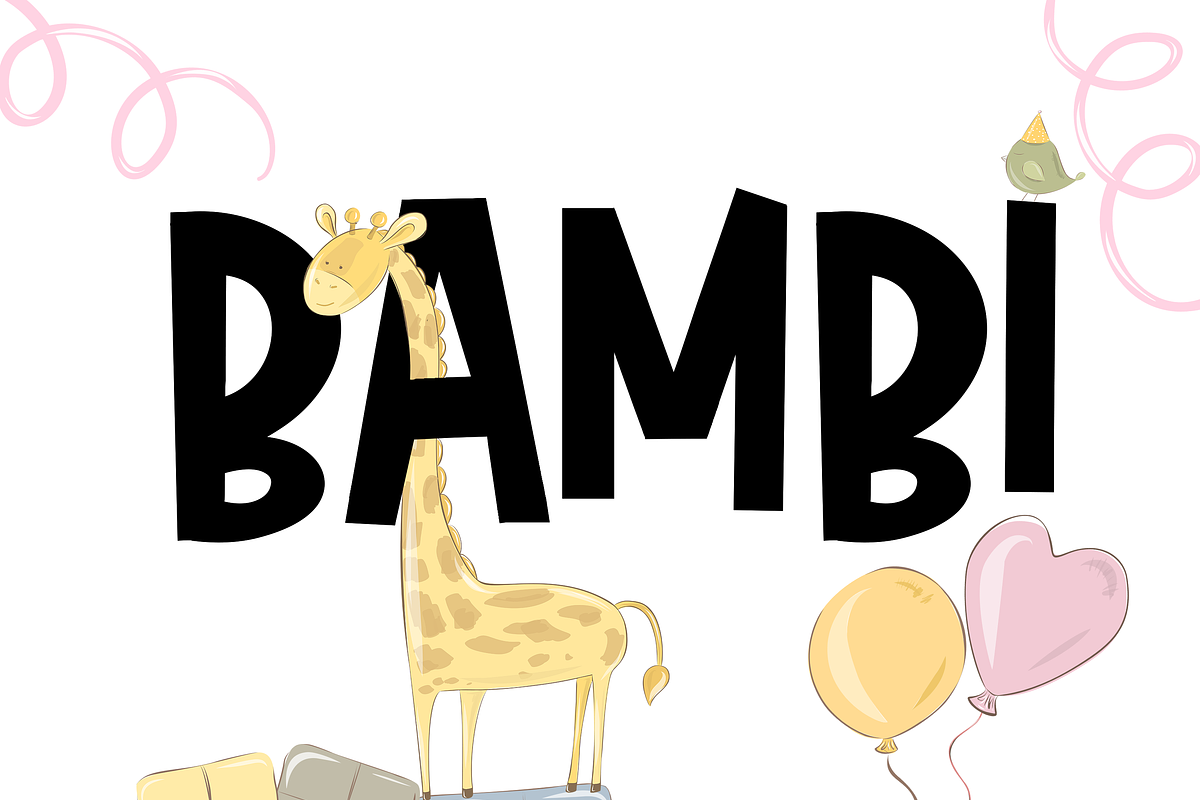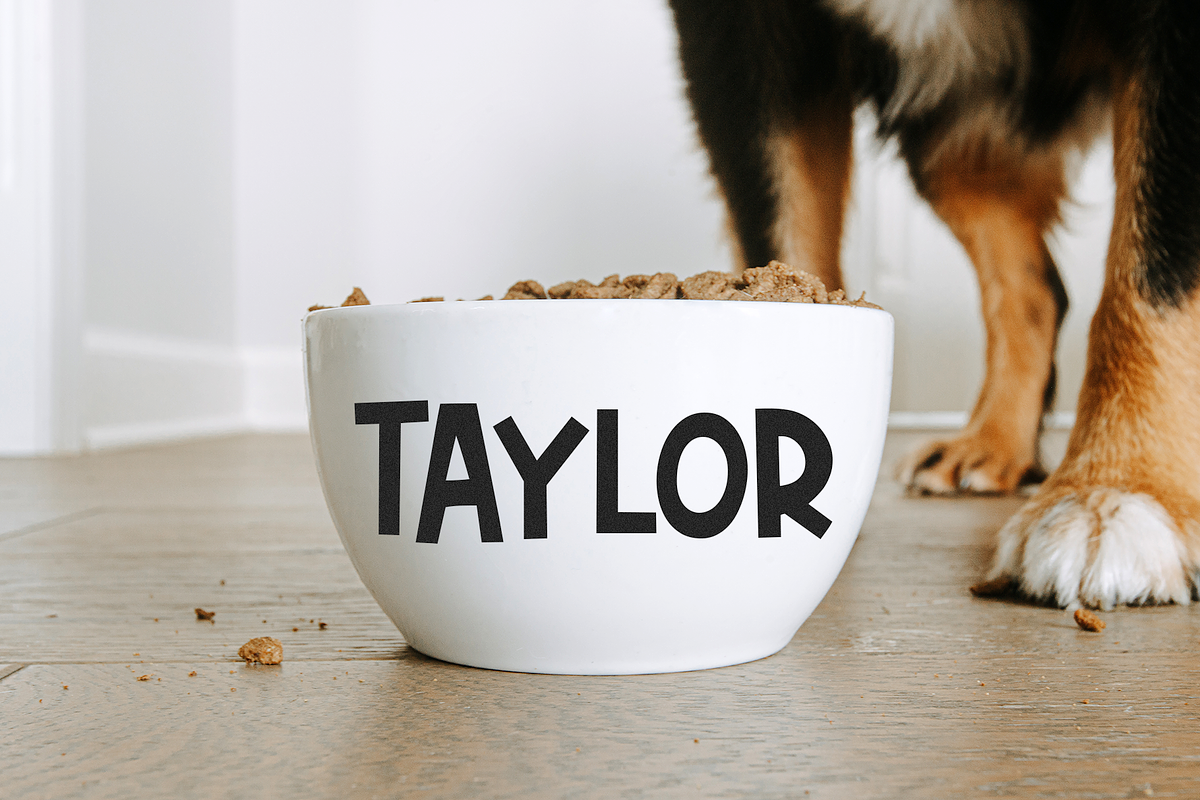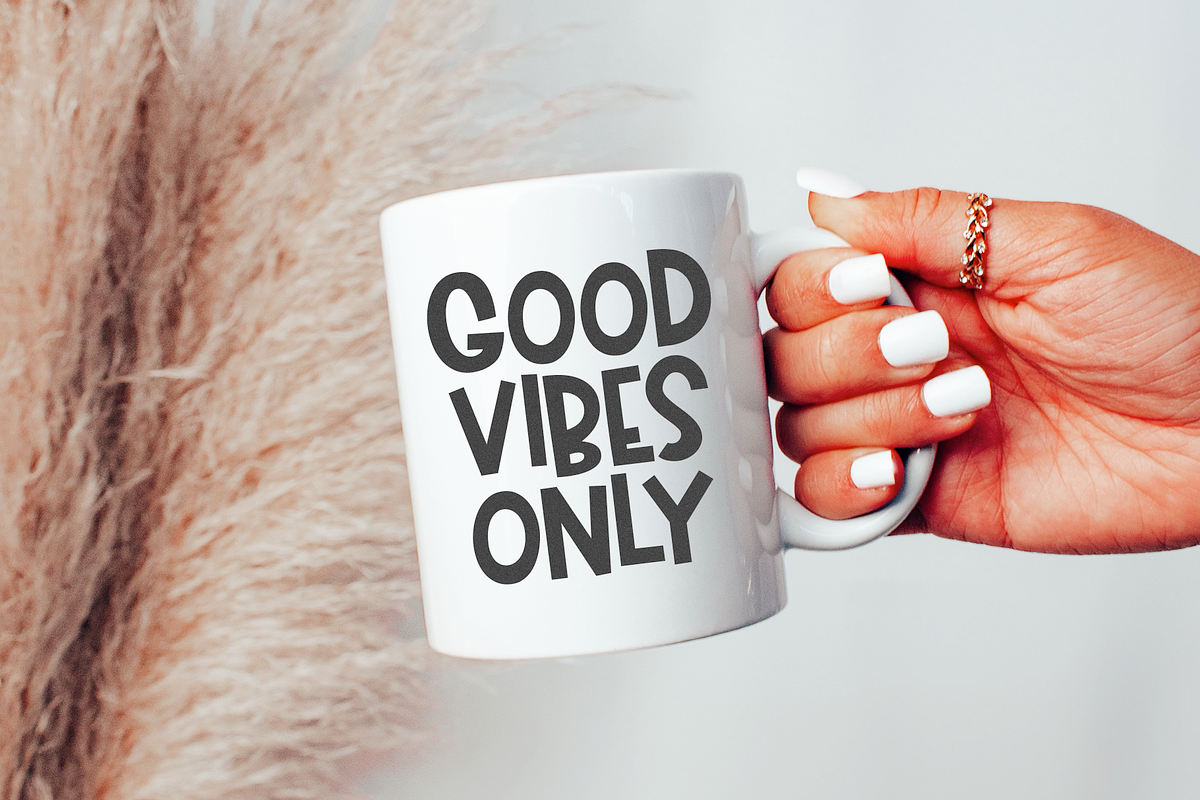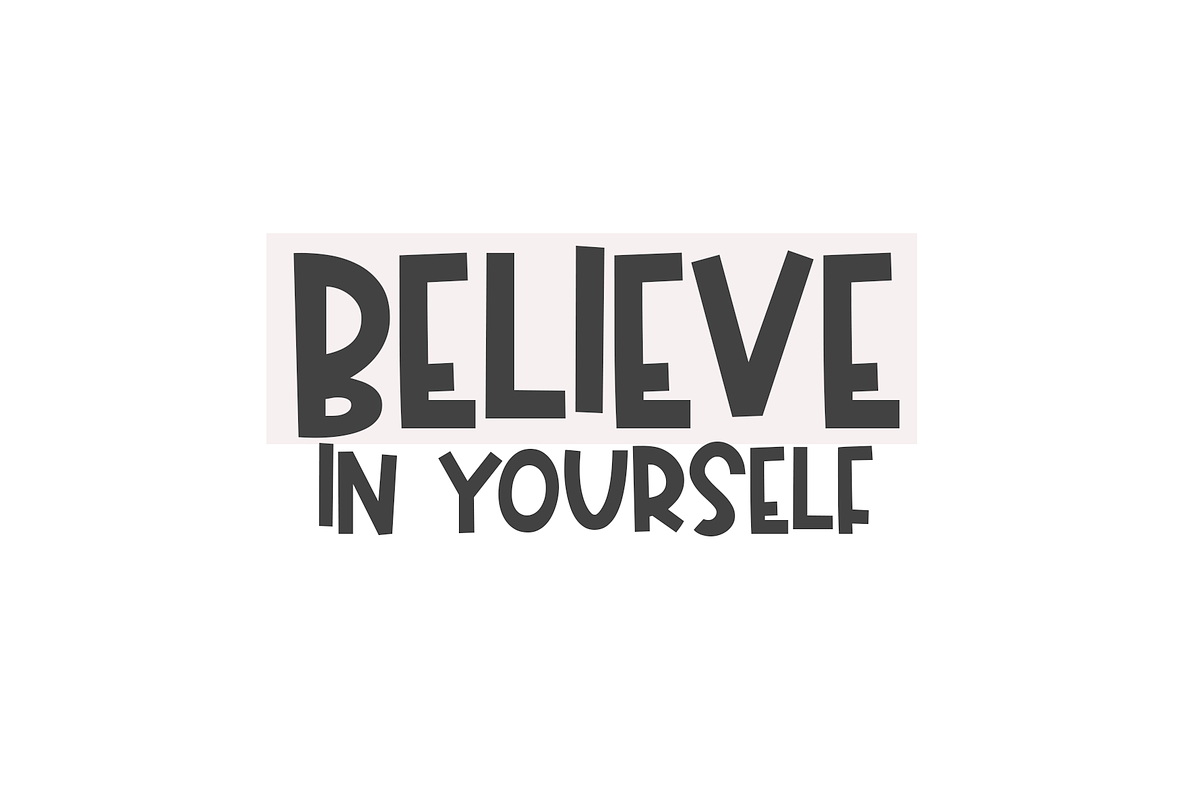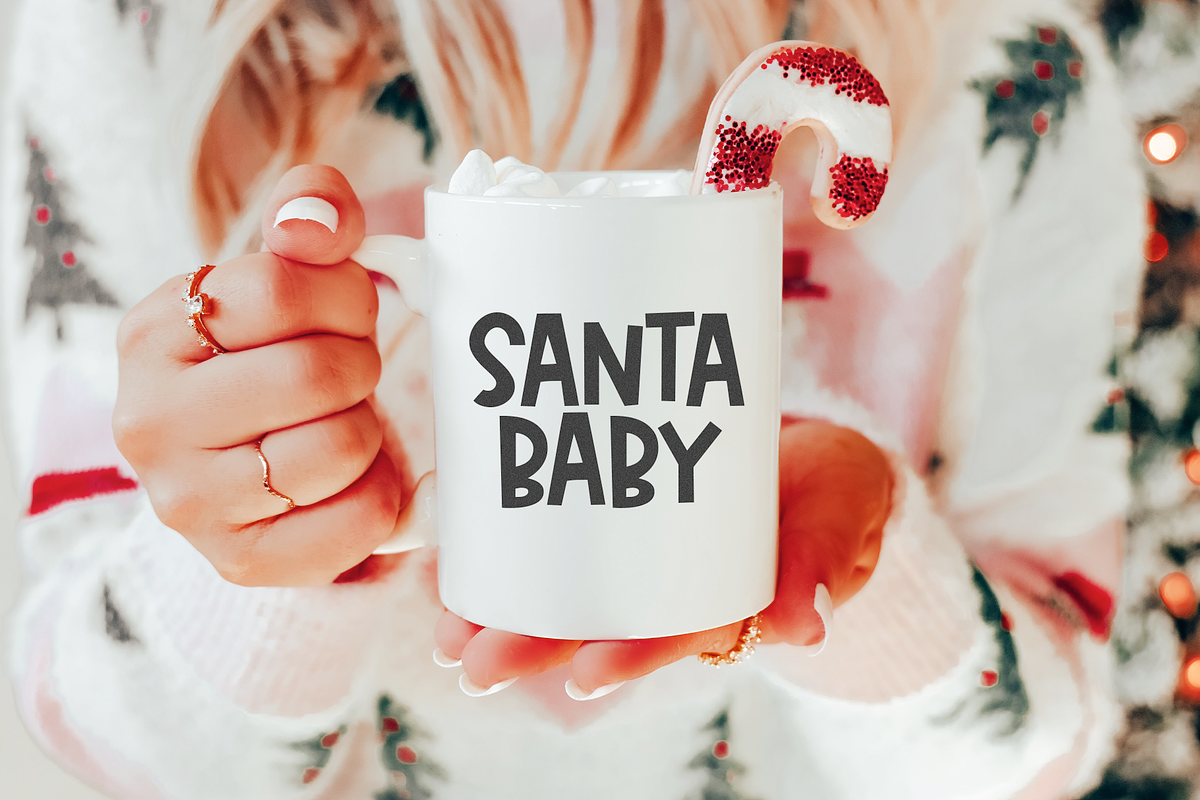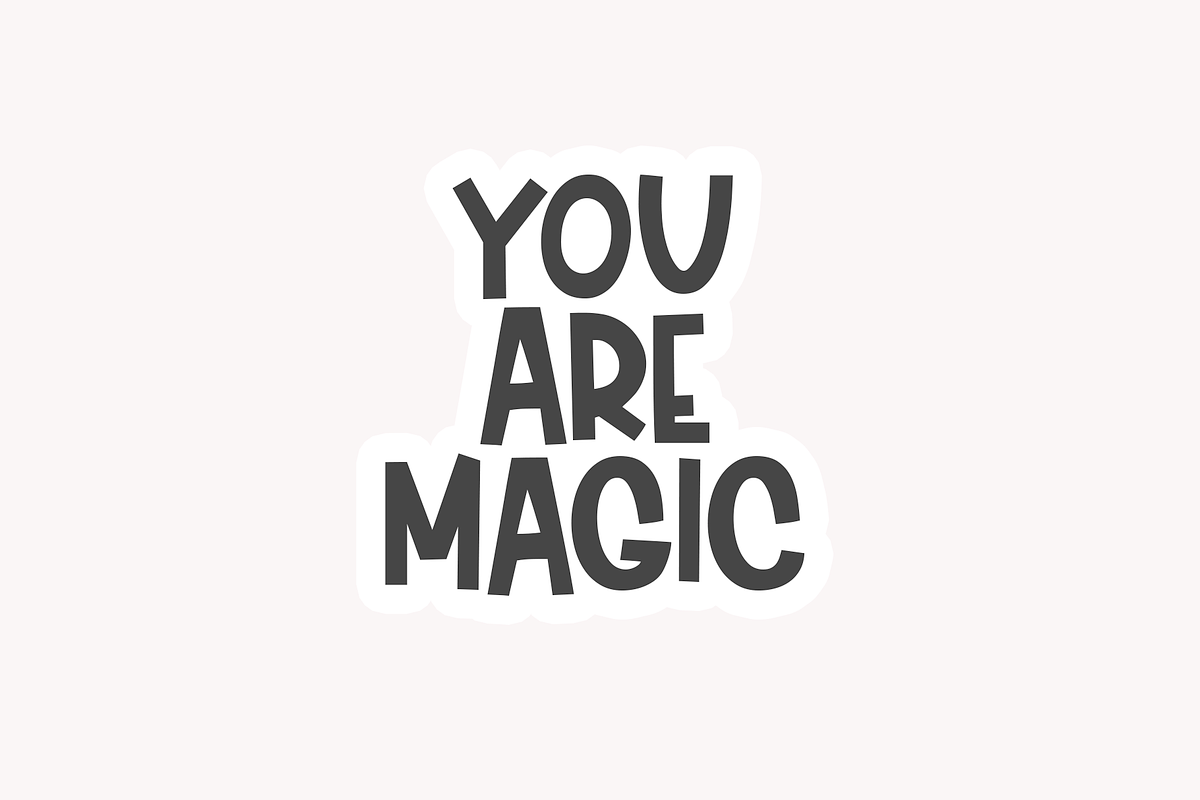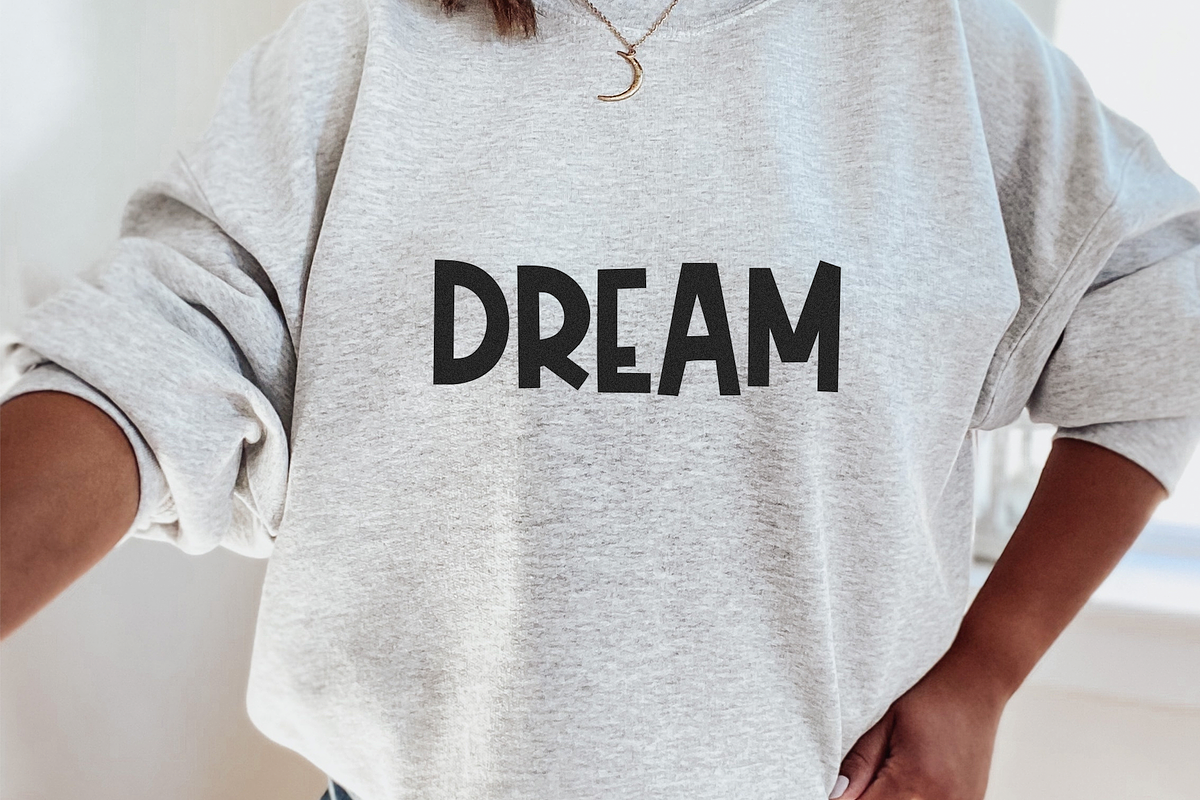
BAMK | A Bold Handwritten Font
BAMK is a fun handwritten font with bold letters. This is an all caps font
This font is perfect for quotes, headings, designs, logos, invitations and more!
BAMK | A Bold Handwritten Font by KA Designs fits naturally into Branding, posters, packaging, typography.